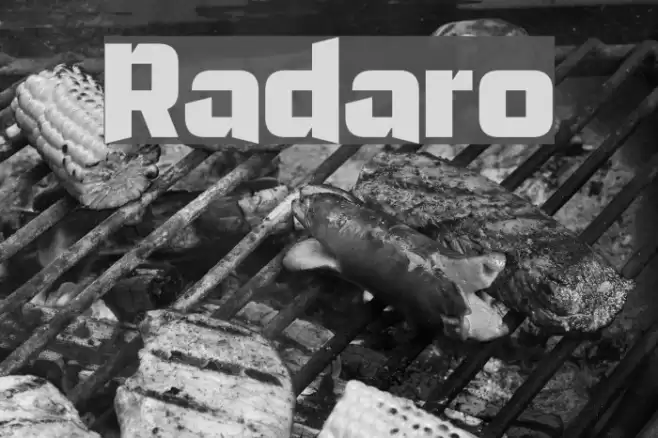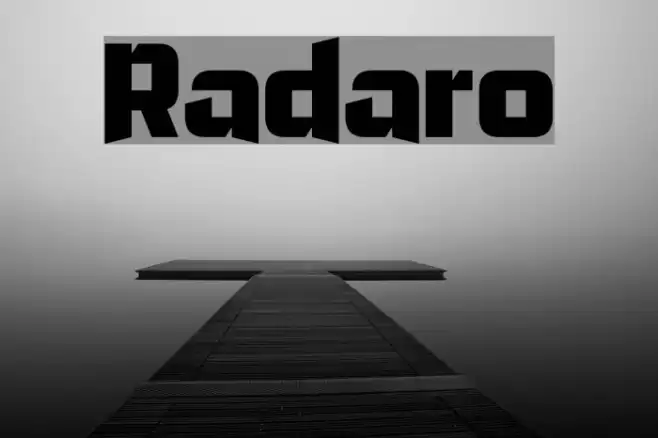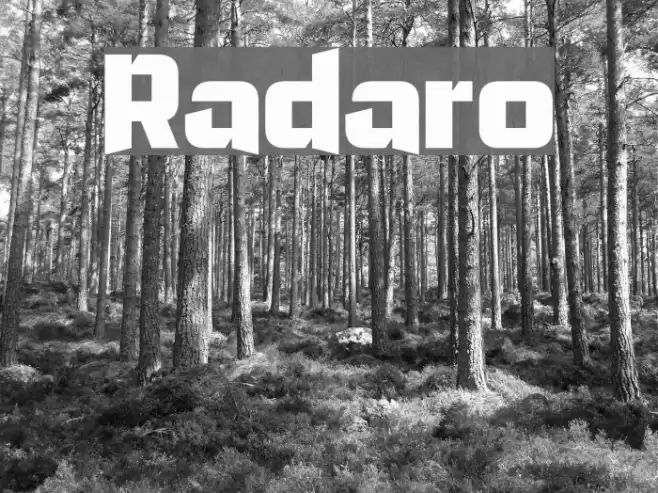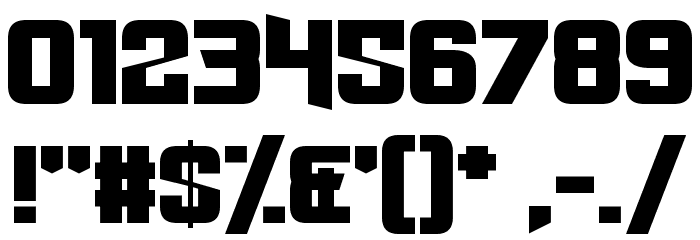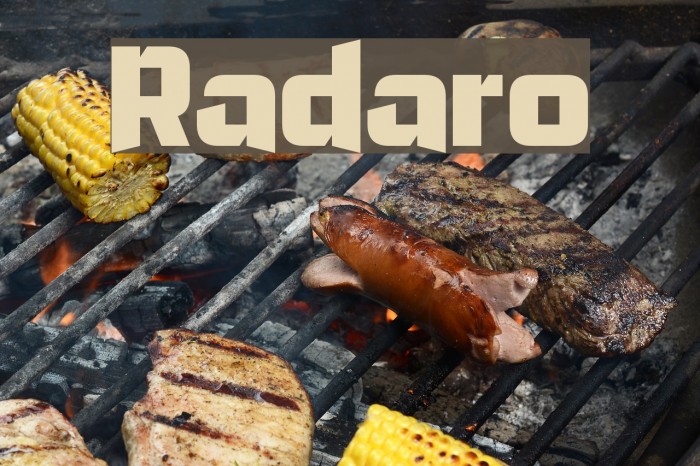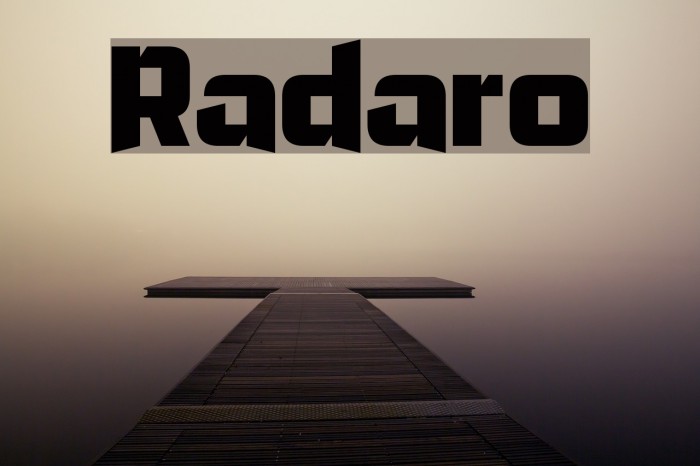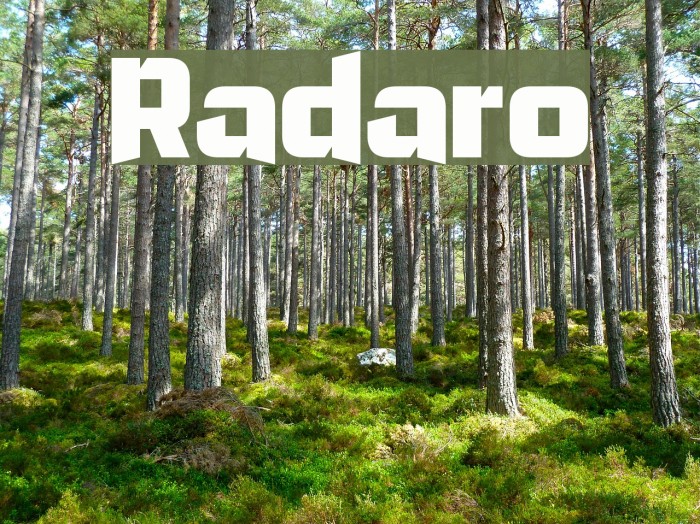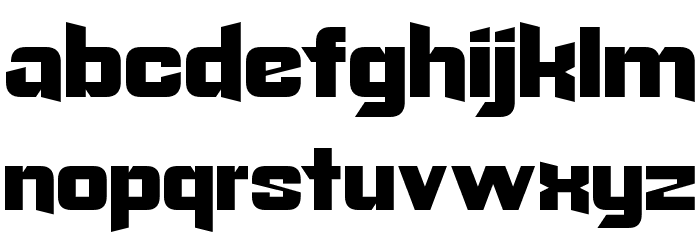
Radaro Font
Radaro Description
This font features a bold and impactful design with strong geometric shapes and a modern aesthetic. The uppercase letters are blocky and robust, while the lowercase letters maintain a consistent thickness, creating a cohesive look. The numbers are equally bold, ensuring visibility and emphasis. Special characters are designed with the same boldness, making them stand out. The overall style is assertive and contemporary, suitable for making a strong visual statement.
A bold, geometric font with a modern and impactful design from Uncategorized fonts.
- Proposed Projects: Ideal for branding, posters, headlines, and any project requiring a strong visual impact.